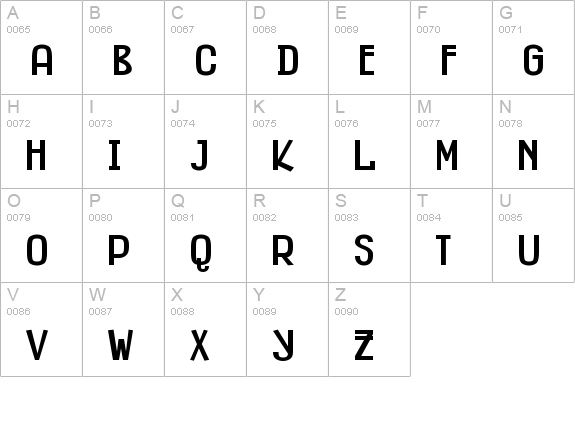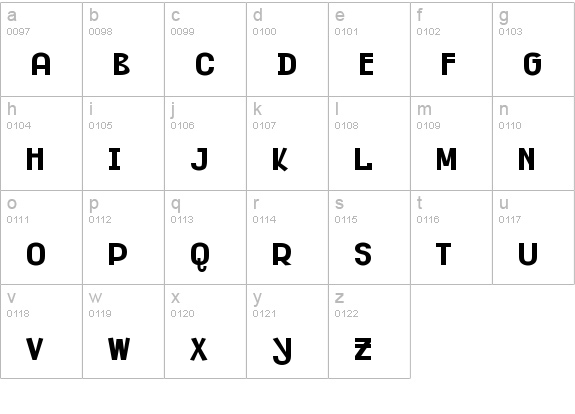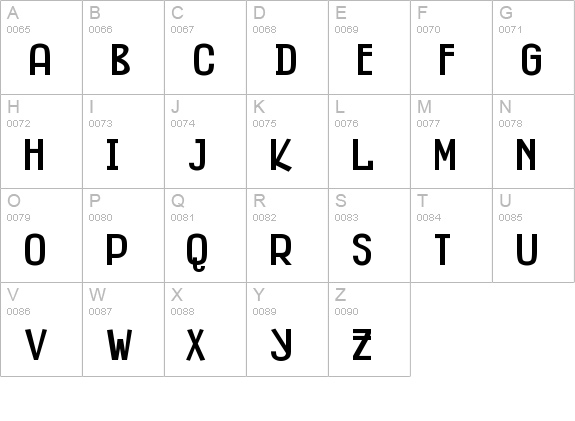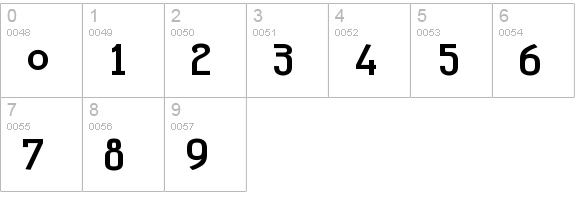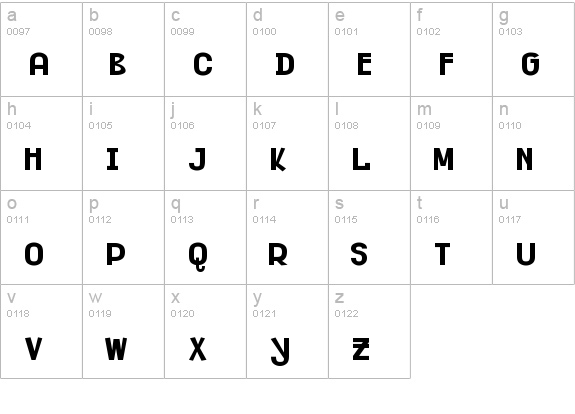
Fitzgerald Black is a maximum-weight, dramatic variant in the Fitzgerald typeface family \xE2\x80\x94 well suited to maximum-impact headlines, posters, and packaging.
Fitzgerald Black font is a sophisticated and elegant typeface that exudes a sense of timeless class and refinement. With its bold and distinctive letterforms, this font is perfect for adding a touch of luxury to your designs. Whether you are creating invitations, branding materials, or editorial layouts, Fitzgerald Black font will lend a touch of sophistication and style to any project. The best part? Fitzgerald Black font is available for free download at FontsMarket.com. Simply visit the website and download this exquisite font to elevate your designs to the next level. Don't miss out on the opportunity to enhance your work with this stunning typeface, completely free of charge.